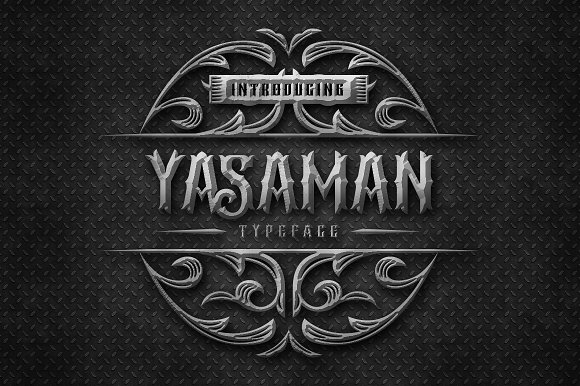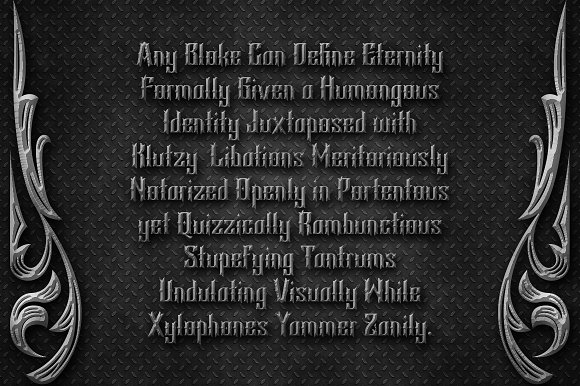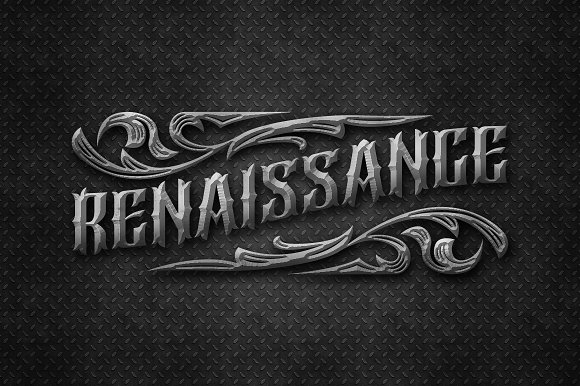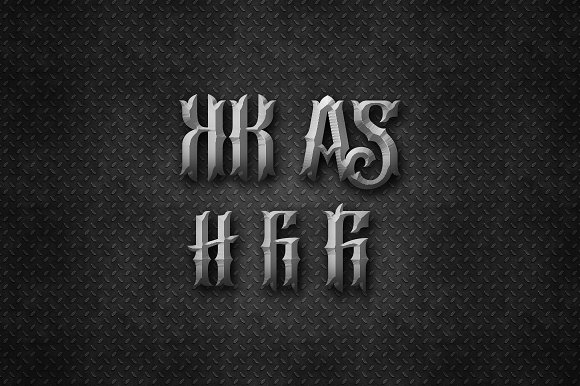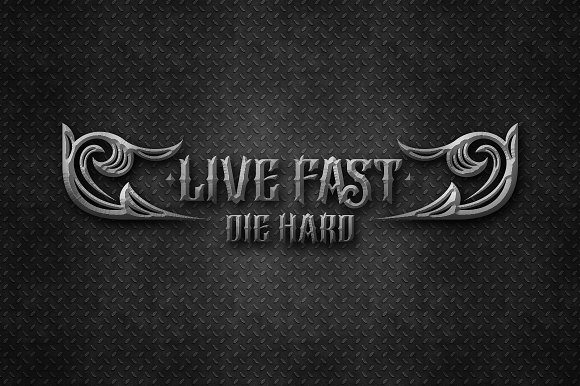
Yasaman Display Font
Yasaman typeface, the creative vintage and minimalism of art nouveau style. Cool font for your any design projects, especially for your headline. tightly shapes, clear and calm!